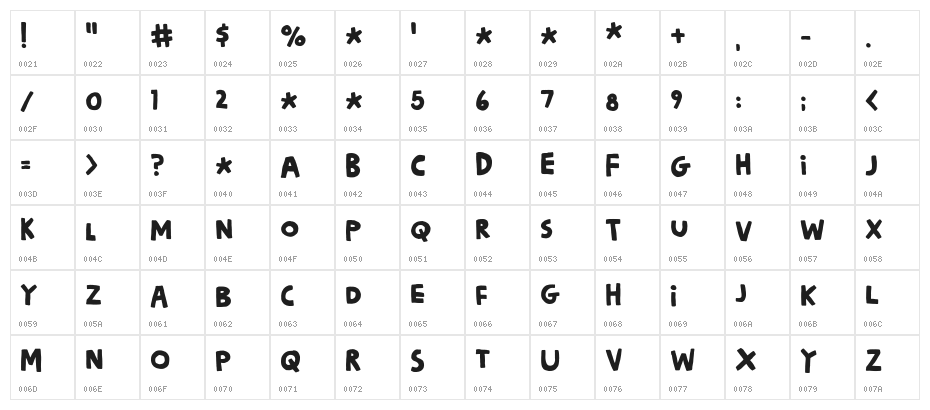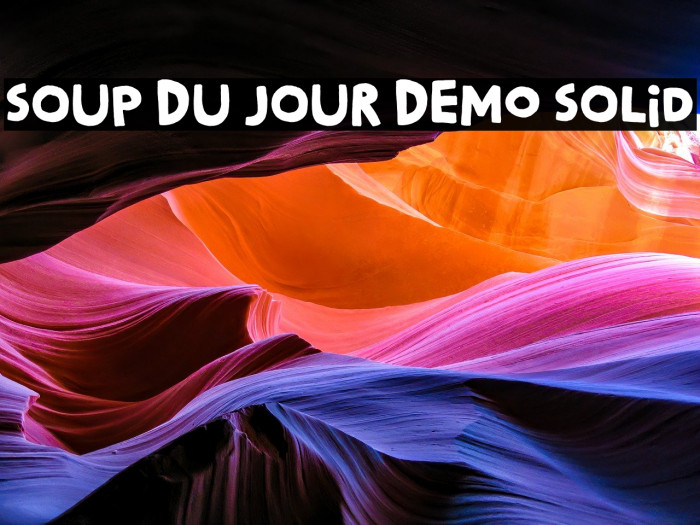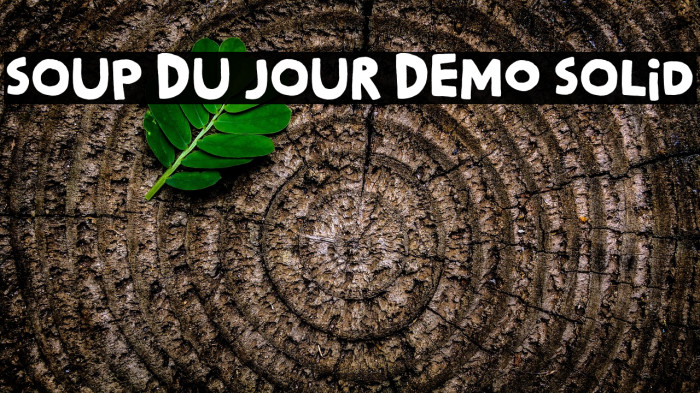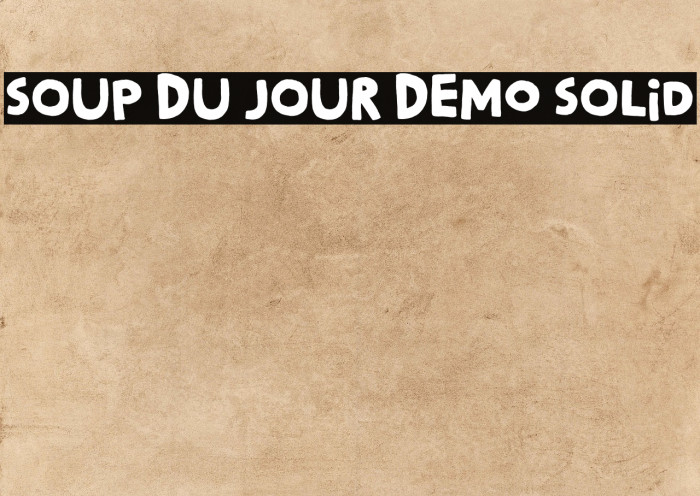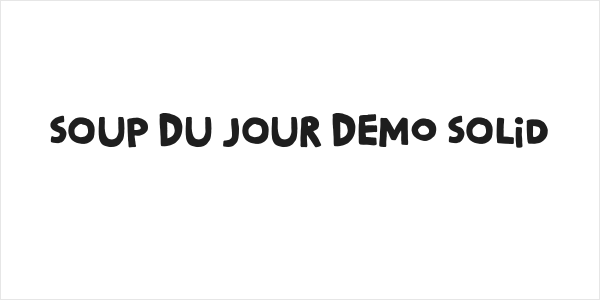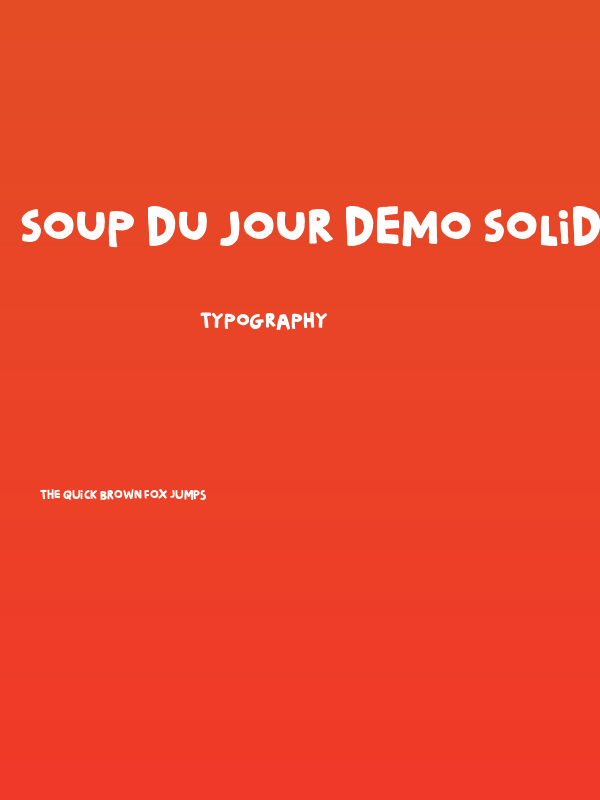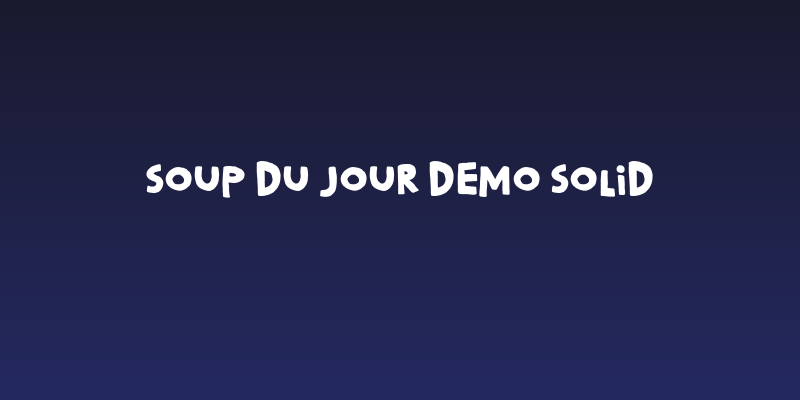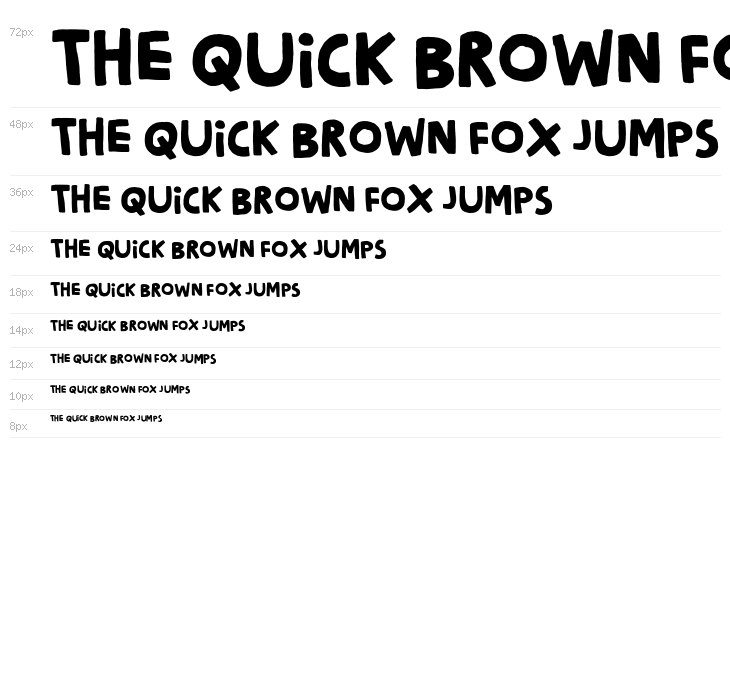
Soup Du Jour DEMO Solid Font
Soup Du Jour DEMO Solid Description
This font features a playful and bold design with a hand-drawn aesthetic. The characters are thick and slightly irregular, giving them a casual and friendly appearance. The uppercase and lowercase letters maintain a consistent style, with rounded edges and a slightly uneven baseline that adds to the whimsical charm. The numbers and special characters follow the same design principles, ensuring a cohesive look across all glyphs. This font's unique style makes it stand out, perfect for projects that require a touch of personality and creativity.
| Proposed Projects | Ideal for children's books, playful branding, casual invitations, and creative posters. |